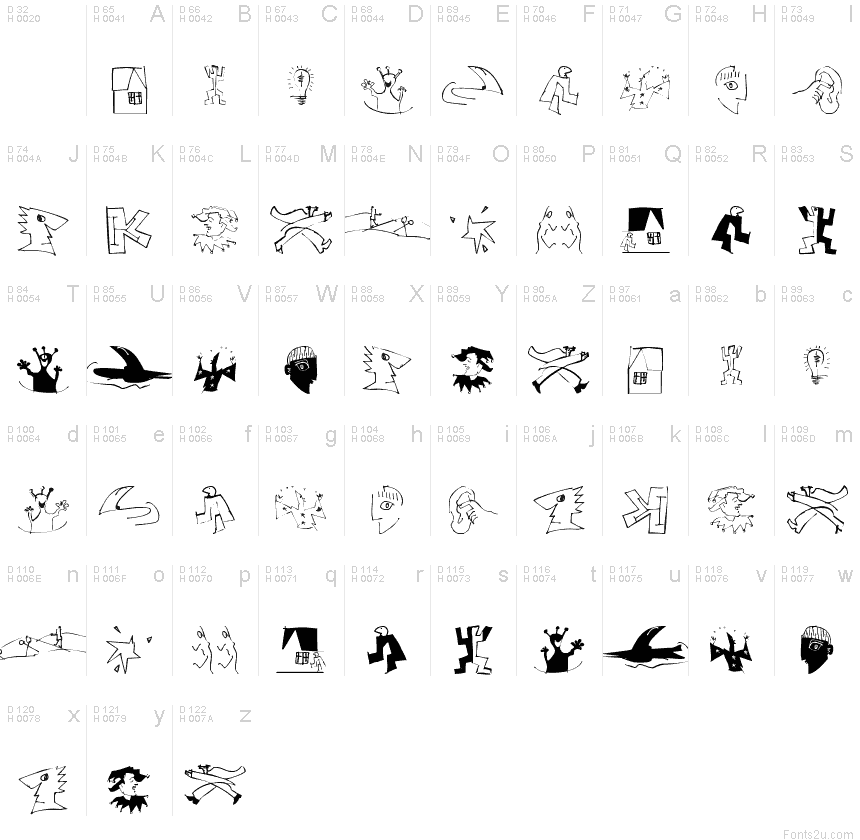
M-sKetches by Manfred Klein is a free cartoon dingbat font built from loose, hand-drawn pictures. The symbols mix lively outline sketches with solid, blocky forms and exaggerated curves. Each mark feels like a quick doodle.
The playful figures and objects can become part of the illustration in children's activity books or comic posters. They also suit classroom materials and casual game graphics, where the uneven lines can echo marker drawings, simple cartoons, and other homemade imagery.